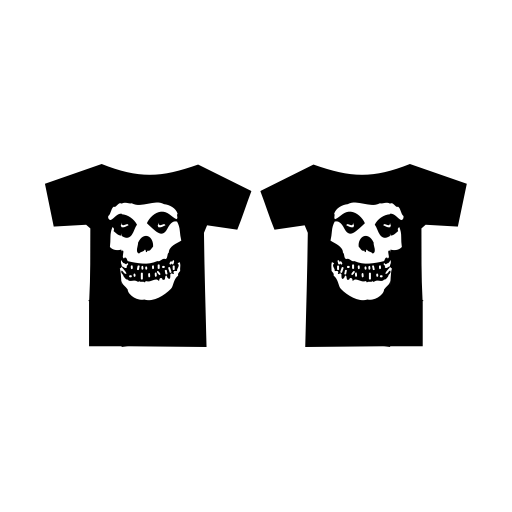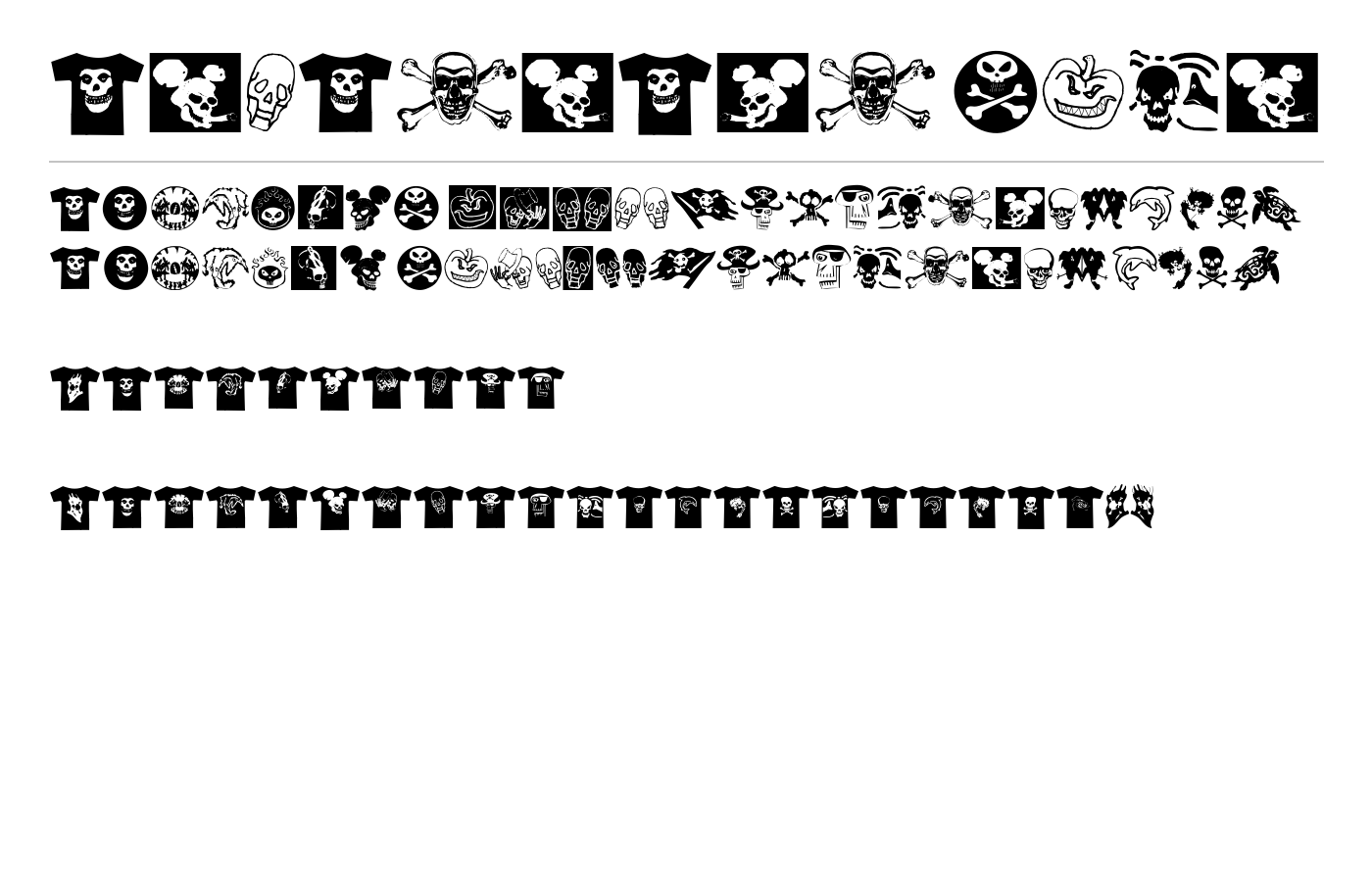
AtLastATshirt Font is a unique symbol-based typeface featuring various skull and crossbones motifs integrated into t-shirt shapes, offering a bold, edgy, and rebellious vibe. Its playful and graphic style makes it ideal for designs related to streetwear, alternative fashion, or Halloween themes, where visual impact and attitude are key. This font works best for logos, posters, and niche branding that seeks to stand out with strong, themed iconography rather than traditional text.
AtLastATshirt Font
About AtLastATshirt Font